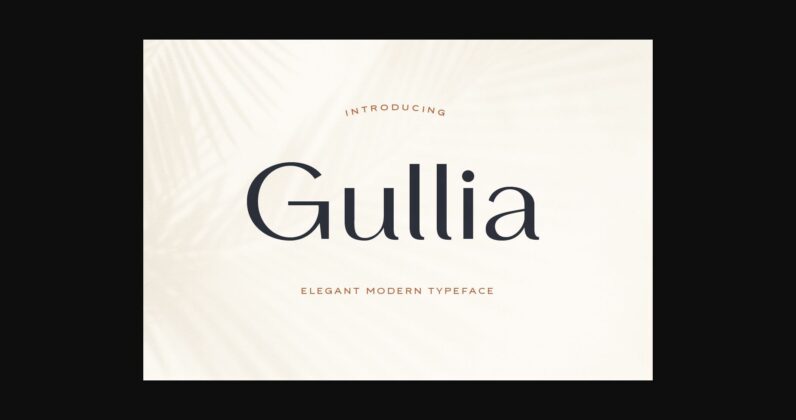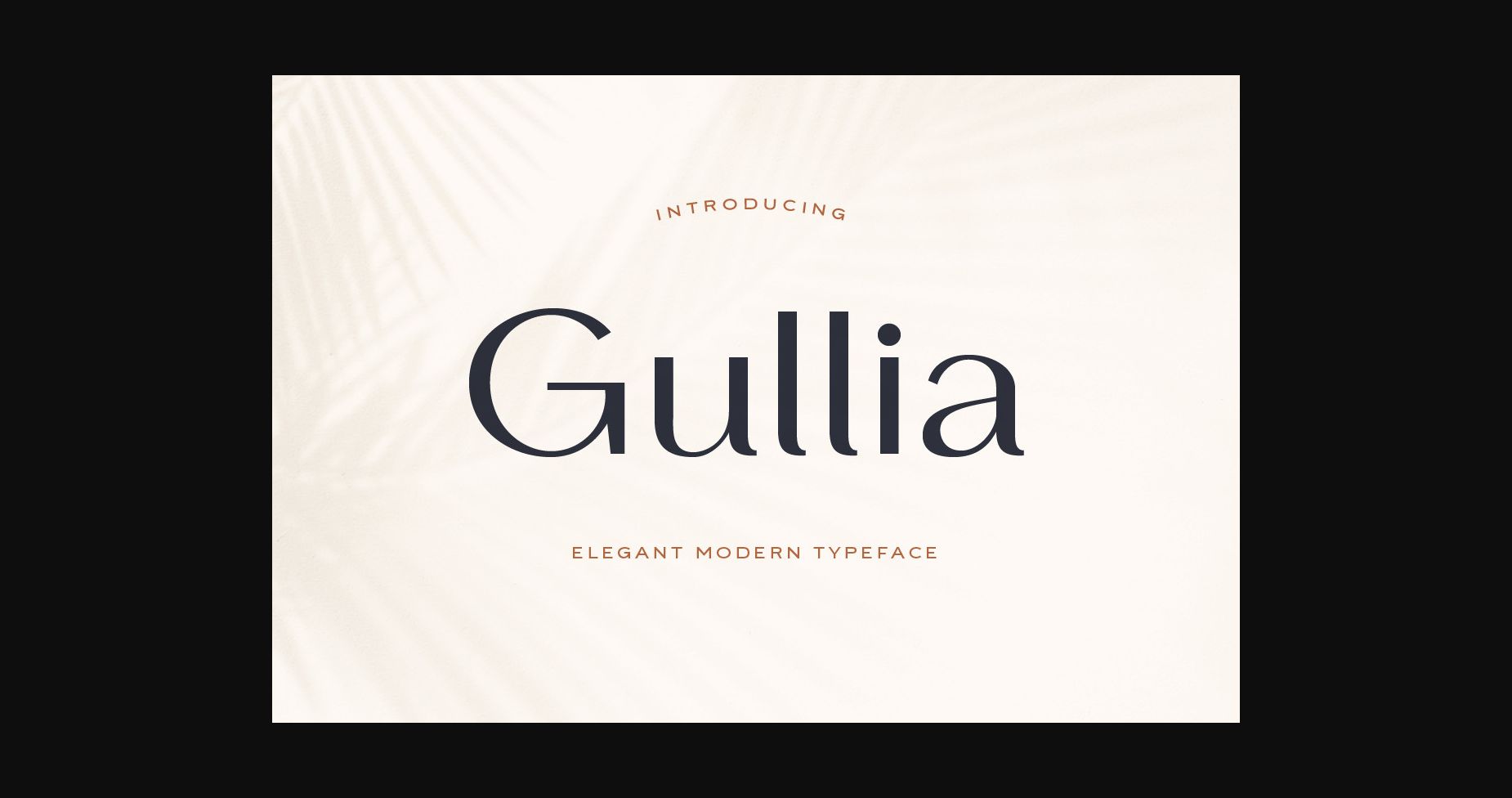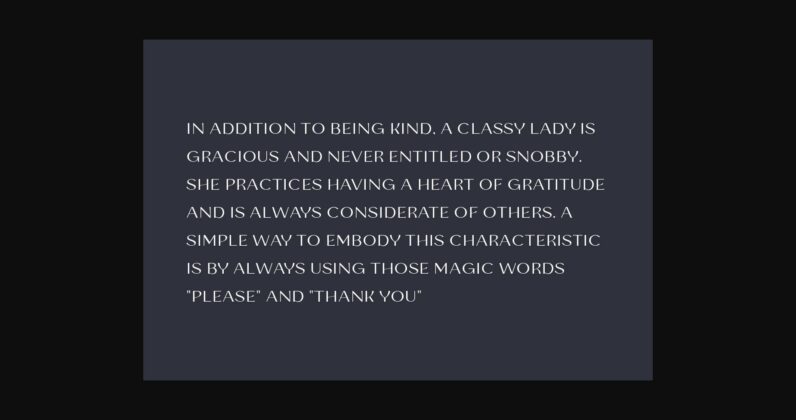
About Gullia Font
Gullia is a delicate and elegant sans serif font. Its distinct and well-balanced letters make this font a masterpiece. Fall in love with its incredibly versatile style and use it to create spectacular designs!